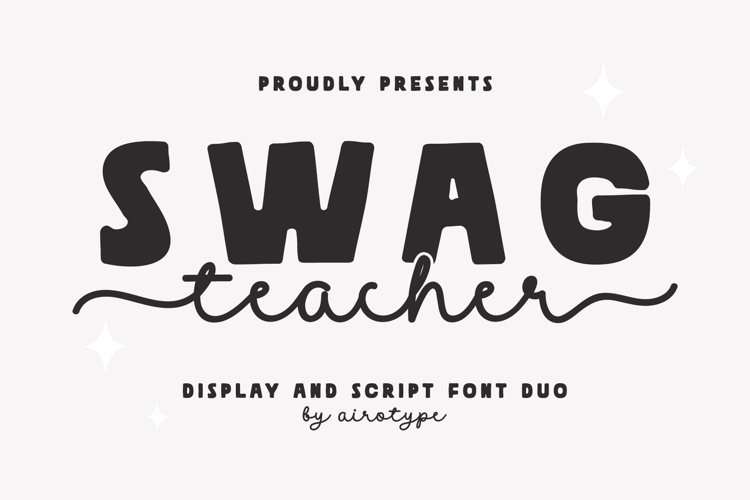
Proud Teacher - A handwritten font duo
Proud Teacher is a duo-styled handwritten font that feels equally charming and delicate. This font is PUA encoded which means you can access all of the glyphs and swashes with ease! Spring Moment will turn any creative idea into a standout!
- Standard glyphs, Basic Latin Unicode: standard English numbers and basic punctuation
- Alternate swashes letter (begin swashes and end swashes)